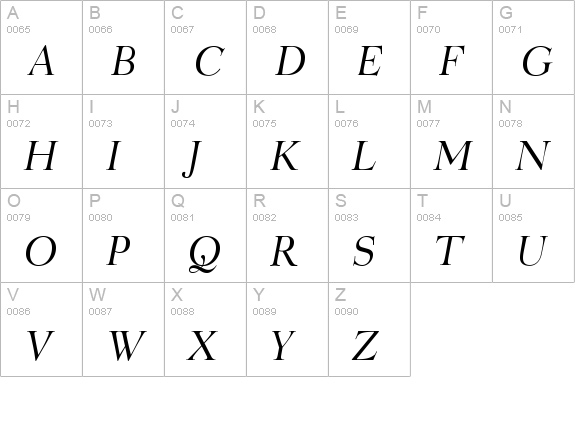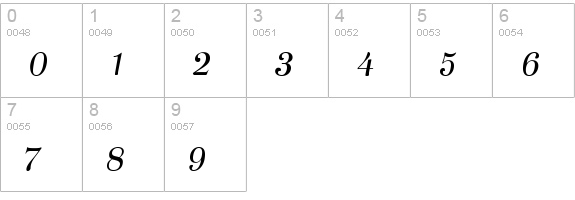
Introducing Belucian-BookItalic font - a charming and elegant typeface perfect for adding a touch of sophistication to your designs. With its delicate curves and stylish slant, this font exudes a sense of grace and refinement. The italic style adds a unique flair to any text, making it ideal for use in invitations, branding, and editorial projects. And the best part? Belucian-BookItalic font is completely free to download at FontsMarket.com. Now you can easily elevate your designs with this beautiful font without breaking the bank. Don't miss out on the opportunity to add Belucian-BookItalic to your font collection today!